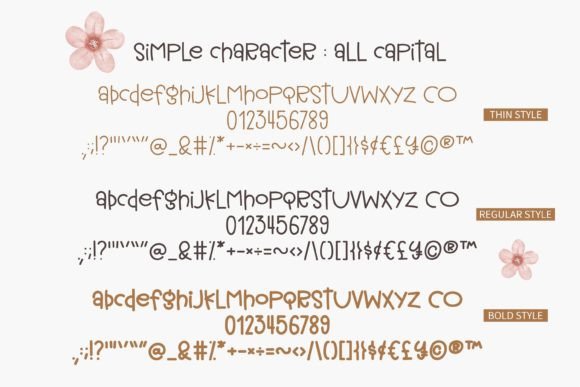
Simple Planner Font
Simple Planner is a duo-styled handwritten font that feels equally charming and delicate. Simple Planner will turn any creative idea into a standout! Fall in love with its incredibly versatile style and use it to create gorgeous wedding invitations, beautiful stationary art, eye-catching social media posts, and much more!